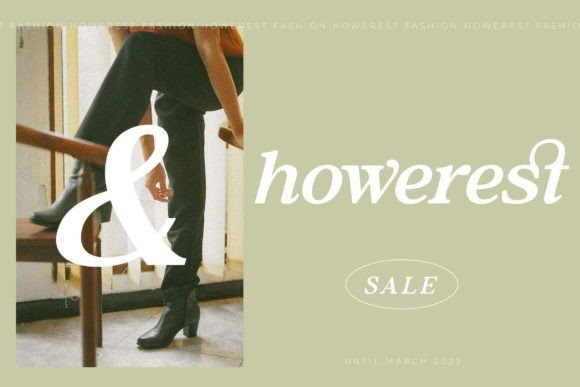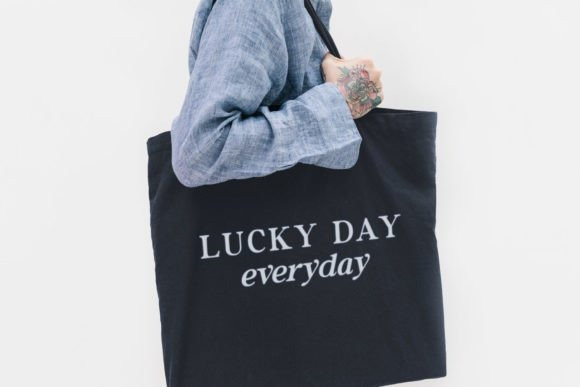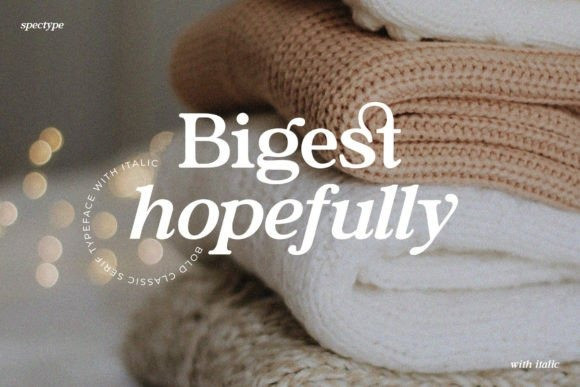
Biggest Hopefully Font
Bigest Hopefully Font is a serif font with a classic, clean, and bold style. It is perfect for projects that need impeccable typography and a touch of elegance!